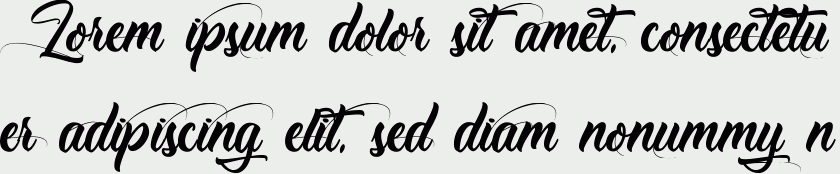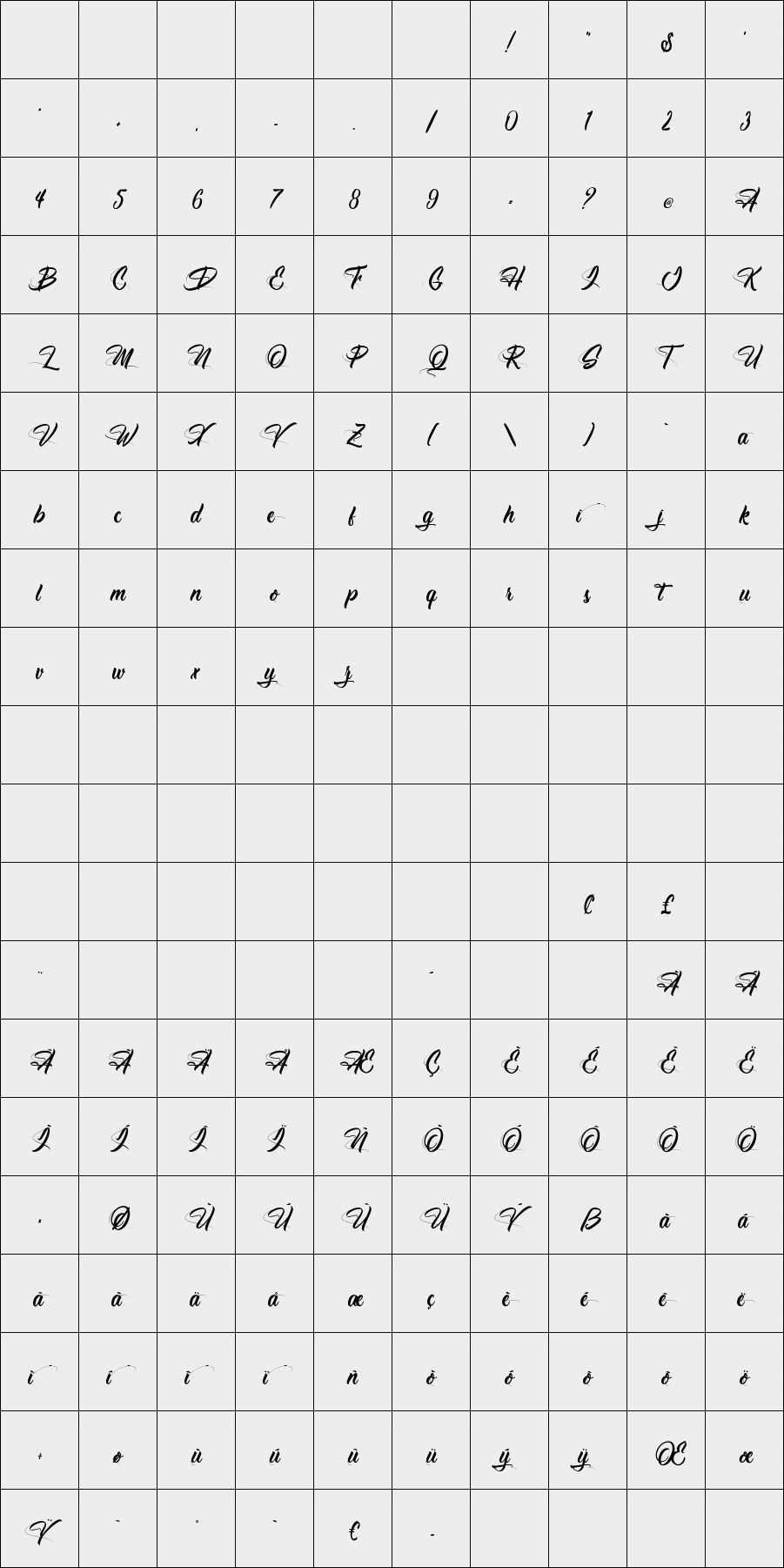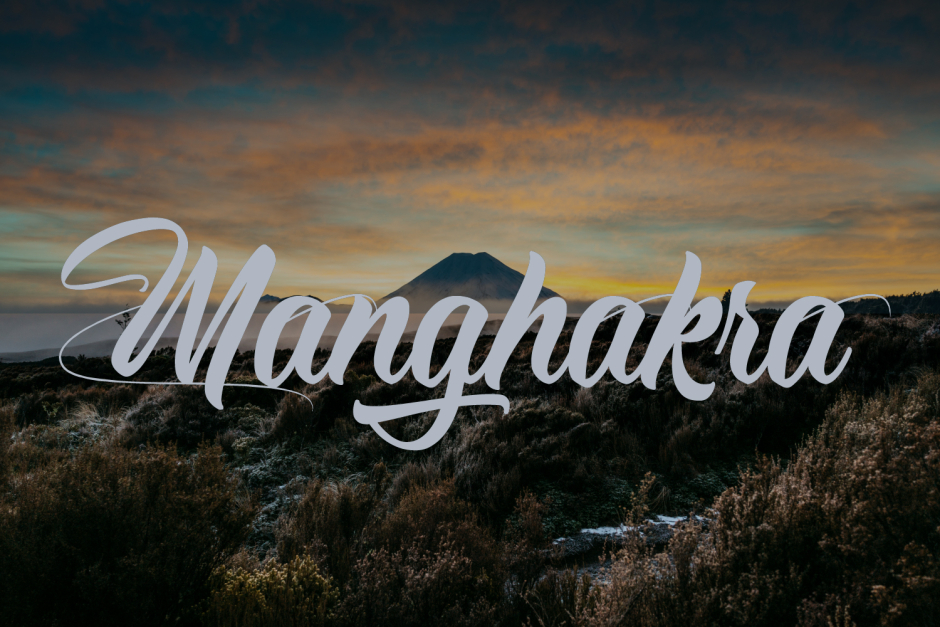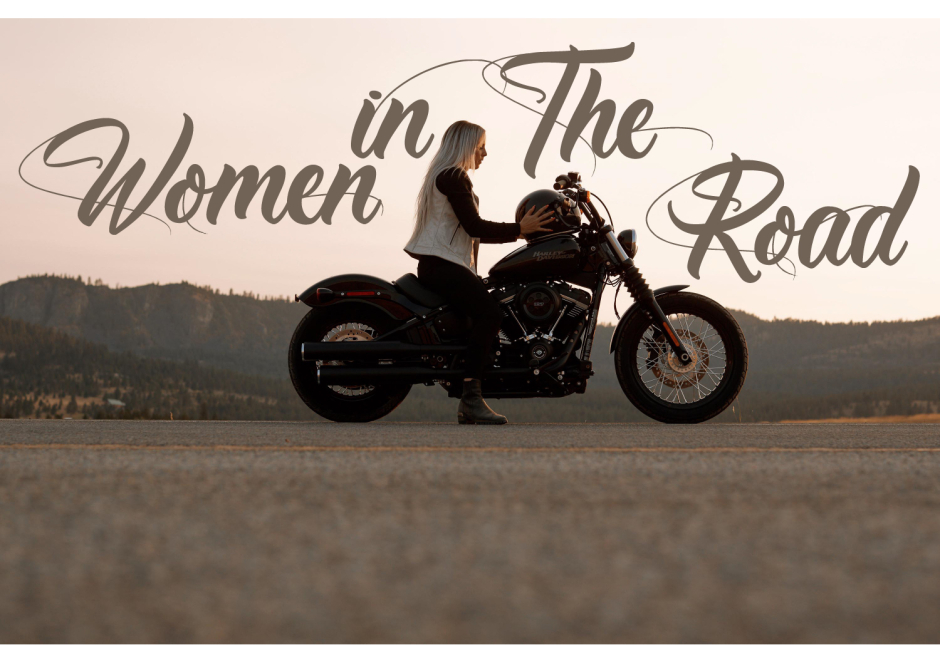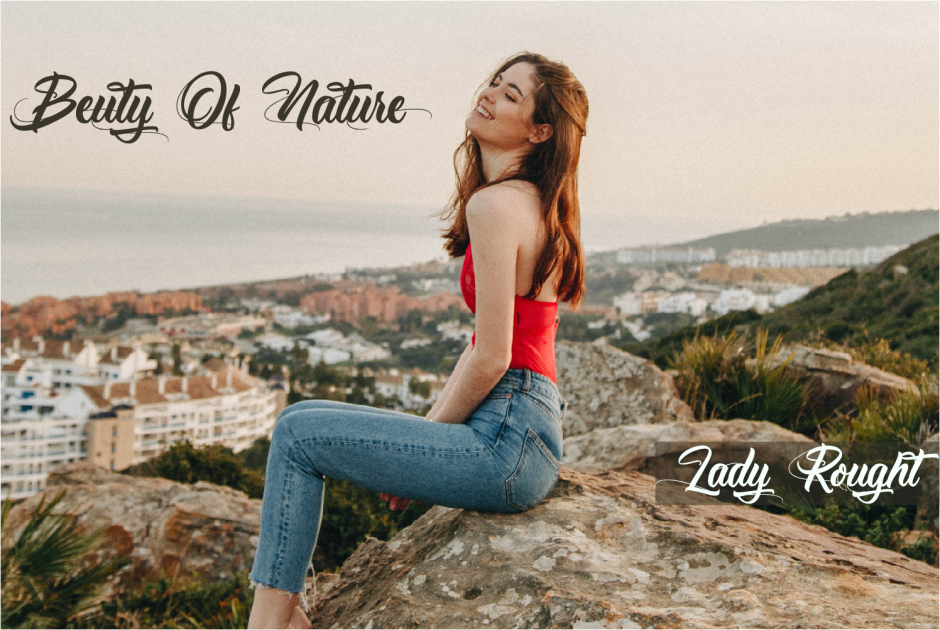
Manghakra
Introducing the elegant font, Manghakra! For those of you who are needing a touch of elegance and modernity for your designs, this font was created for you!
Manghakra was built with OpenType features and includes beginning and ending swashes, alternate swash characters for most lowercase letters, numbers.